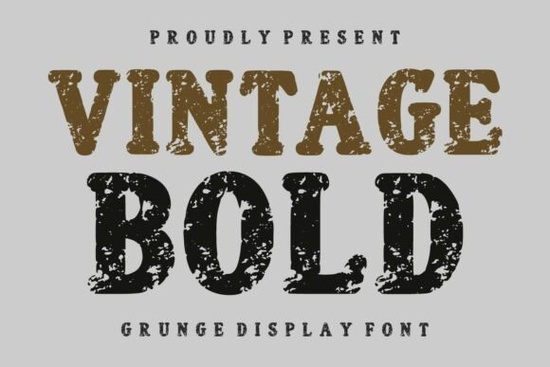
If you're looking for a display font that feels genuinely old-school like it came straight off a weathered barn door or a 1940s diner sign Vintage Bold Font is worth your attention. It’s not just another “vintage-style” font with light noise overlays. This one was built from the ground up with authentic distressed textures, uneven ink density, and bold, sturdy letterforms inspired by letterpress printing and western signage. Designers who’ve tried it for coffee shop branding, craft beer labels, or rustic apparel say it holds up well at large sizes without losing its character or readability.
What makes Vintage Bold different from other grunge fonts?
Many distressed fonts go too far: they sacrifice legibility for texture, or feel digitally slapped-on rather than naturally aged. Vintage Bold avoids both pitfalls. Its weight is consistent enough to anchor headlines, but the subtle wear like faint ink cracks, soft edges, and slight variations in stroke thickness adds warmth and tactility. Think of it as the difference between a photo filter and actual patina: one sits on top; the other lives in the material.
It’s also carefully spaced and kerned for real-world use not just mockups. That means fewer manual tweaks when you’re setting text for a poster, t-shirt design, or product label. You’ll notice it especially in uppercase settings (though it includes full lowercase and multilingual support), where its strong presence helps convey confidence and heritage without shouting.
Where does it work best?
This font shines where personality and context matter most:
- Small-batch packaging like handmade soap labels, local honey jars, or artisanal hot sauce bottles
- Branding for rustic or outdoorsy businesses think trail guides, campsite merch, or regional food producers
- Event graphics county fairs, music festivals with country or folk themes, or vintage car shows
- Social media banners and story highlights it scales cleanly across devices when used at appropriate sizes
- Print-on-demand products especially apparel, mugs, and tote bags where bold contrast helps designs pop
Because the distressing is baked into the outlines not applied as a layer it exports cleanly to vector-based tools like Illustrator or Affinity Designer. No extra raster steps needed. And unlike some hand-drawn fonts, it doesn’t require OpenType features to look right out of the box.
How does it pair with other fonts?
Vintage Bold works best as a headline or logo font not body text. For supporting type, choose something clean and neutral: a simple sans-serif like Montserrat or Lato, or even a quiet serif like Merriweather. The contrast lets the vintage energy stand out without overwhelming the layout.
Real-world usage tips
• Avoid overusing the heaviest weight for long blocks even bold display fonts fatigue the eye quickly.
• Test print samples before finalizing packaging. Some printers smooth out fine texture details; a quick test run helps you adjust contrast or size if needed.
• Pair with muted, earthy color palettes (ochre, charcoal, cream, deep green) to reinforce the rustic feel bright neons tend to clash unless intentionally ironic.
If you'd like to see how designers are applying this style in practice, check out real examples of vintage typography on Vintage Bold Font on Creative Fabrica especially user-uploaded projects tagged “craft business” or “small batch branding.”
Before you download
Ask yourself:
- Is my project aiming for authenticity not just “old-looking” but felt history?
- Do I need strong visibility at large sizes (logos, posters, signs)?
- Will the texture enhance, not distract from, my message or brand voice?
- Am I comfortable adjusting spacing manually if needed or do I prefer fonts that work “as-is” for tight deadlines?
If most answers are yes, Vintage Bold Font is likely a solid fit. It’s not flashy or trendy it’s dependable, textured, and quietly confident. And for small creative businesses building identity through consistency and craft, that kind of reliability matters more than novelty.